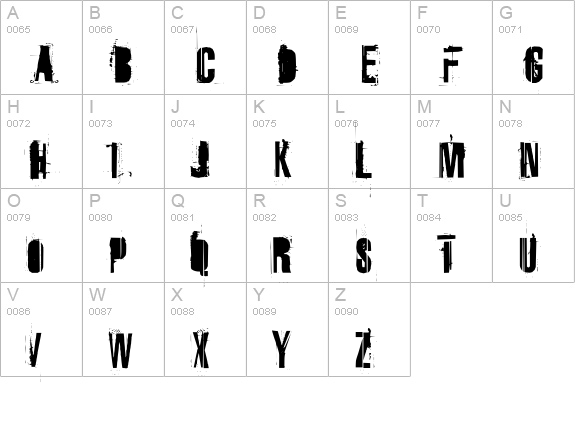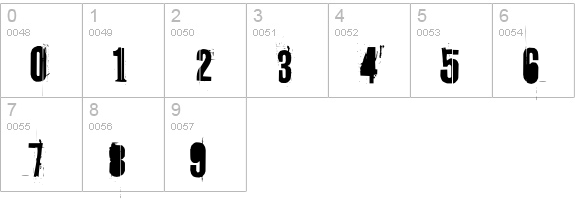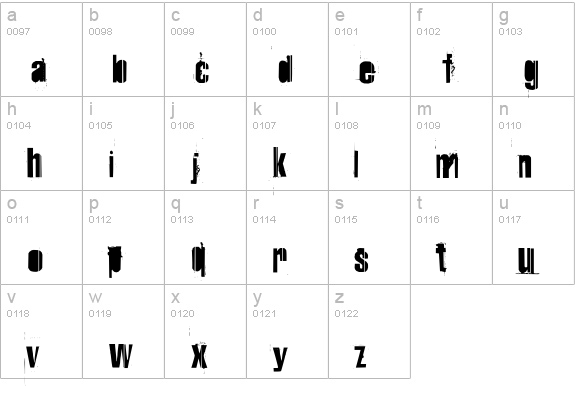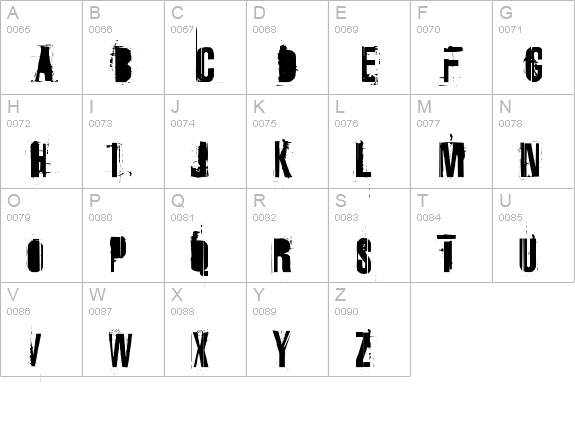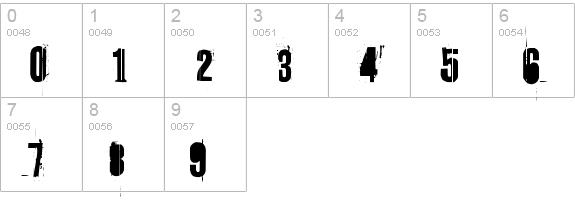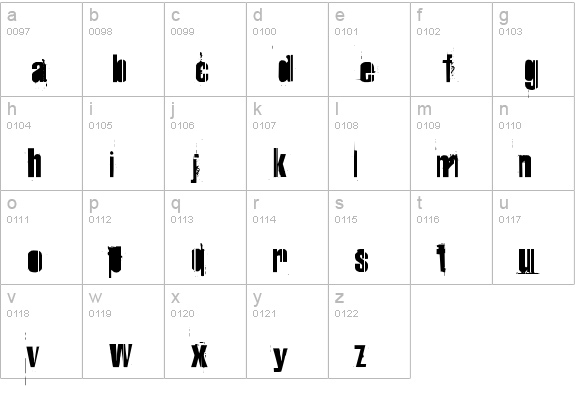
Dang Font Details
Introducing Dang font, a striking and versatile typeface that is sure to captivate the eyes of designers and typography enthusiasts alike. With its bold yet elegant letterforms, Dang font exudes a sense of modernity and sophistication, making it the perfect choice for a wide range of creative projects. This stunning font is not only visually appealing but also highly functional, offering a seamless reading experience across various mediums. Its carefully crafted characters ensure legibility, allowing your message to shine through effortlessly. Whether you're designing a logo, crafting a headline, or creating eye-catching social media graphics, Dang font will undoubtedly elevate your work to new heights. But what sets Dang font apart from the rest? It's the fact that it is freely available to download at FontsMarket.com. Yes, you heard it right – this exceptional font can be yours without spending a dime. We believe that great design should be accessible to all, and that's why we have made Dang font readily available for you to incorporate into your creative endeavors. So why wait? Unleash your creativity and explore the endless possibilities that Dang font has to offer. Download it now from FontsMarket.com and experience the power of this remarkable typeface firsthand. Whether you're a seasoned designer or just starting your creative journey, Dang font is here to elevate your designs and help you make a lasting impression. Embrace the freedom of expression with Dang font and let your creativity soar.